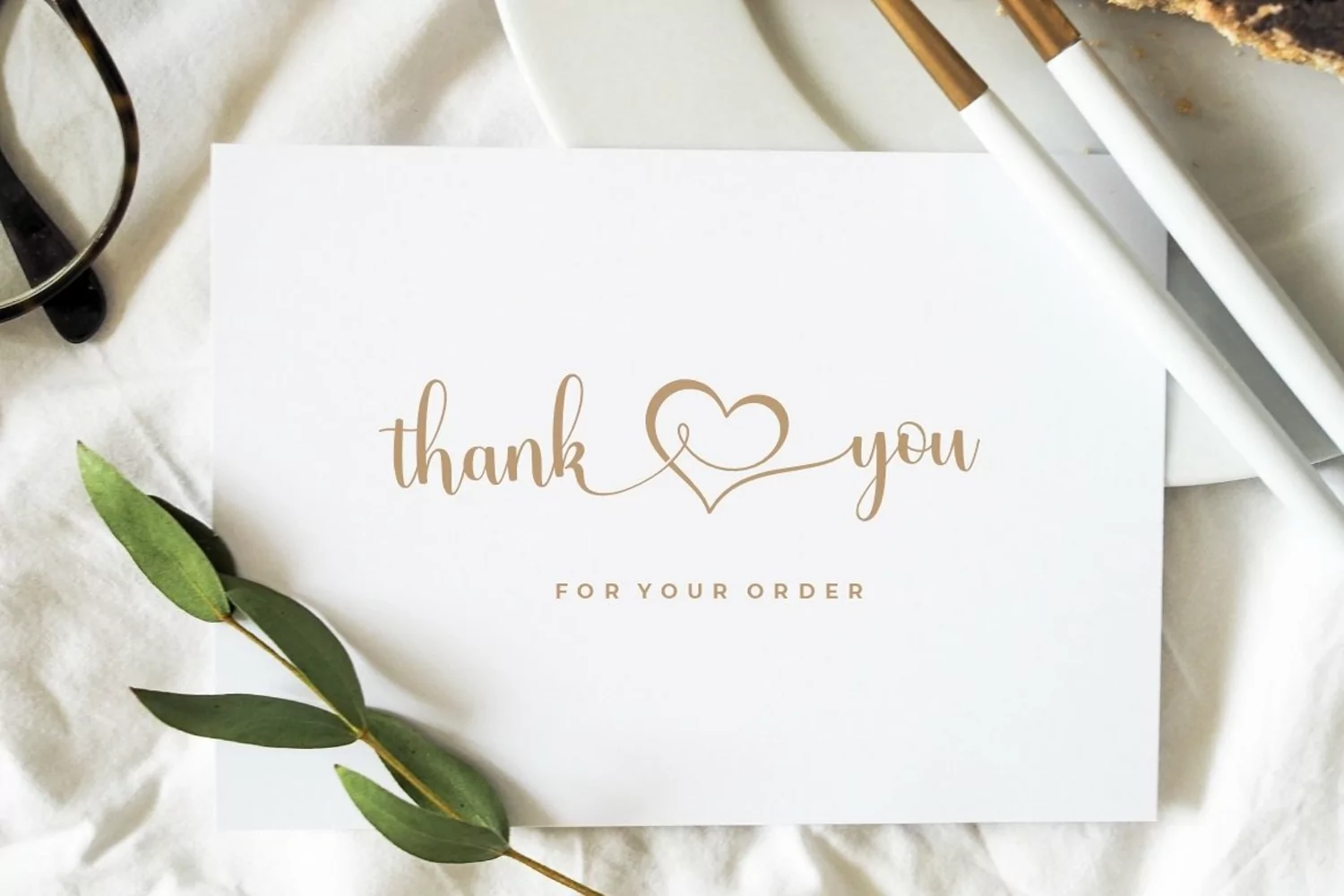
Madelyn Heart Font is a clean and modern script font carefully created with a touch of elegance. Whether you’re looking for fonts for Instagram or calligraphy scripts for DIY projects, this font will turn any creative idea into a true piece of art!